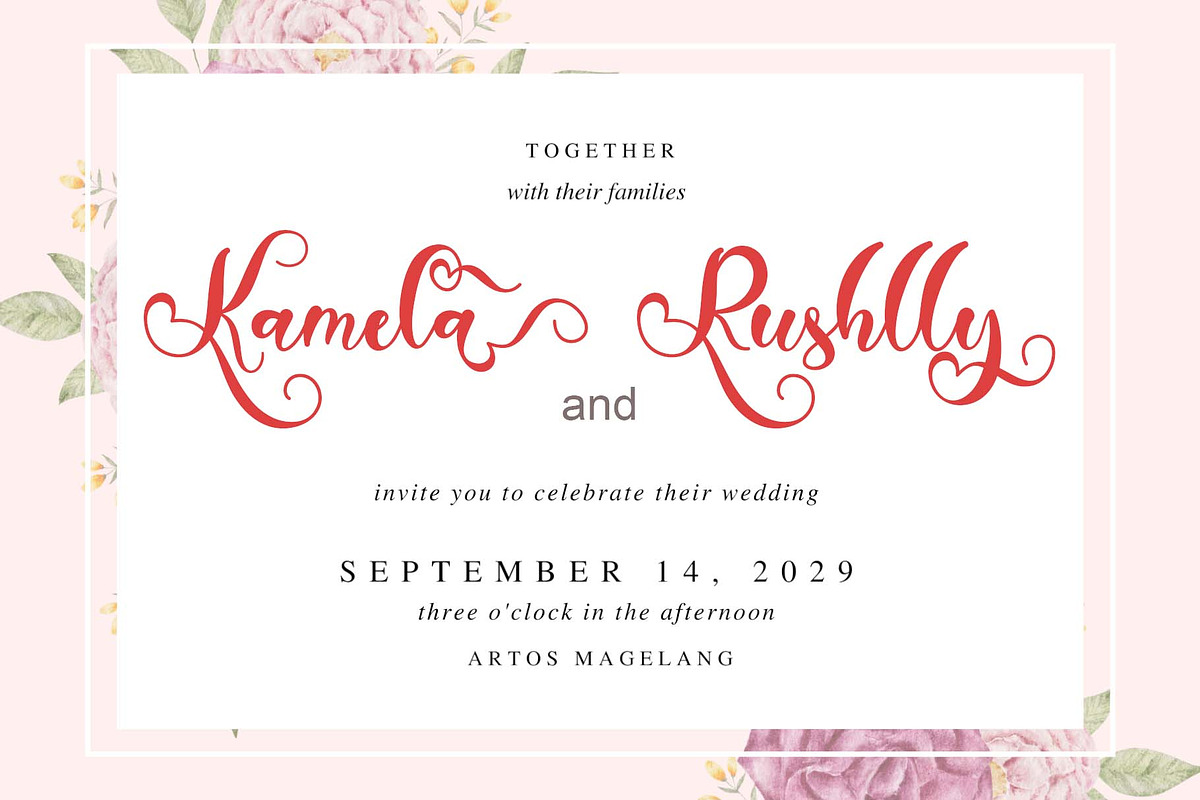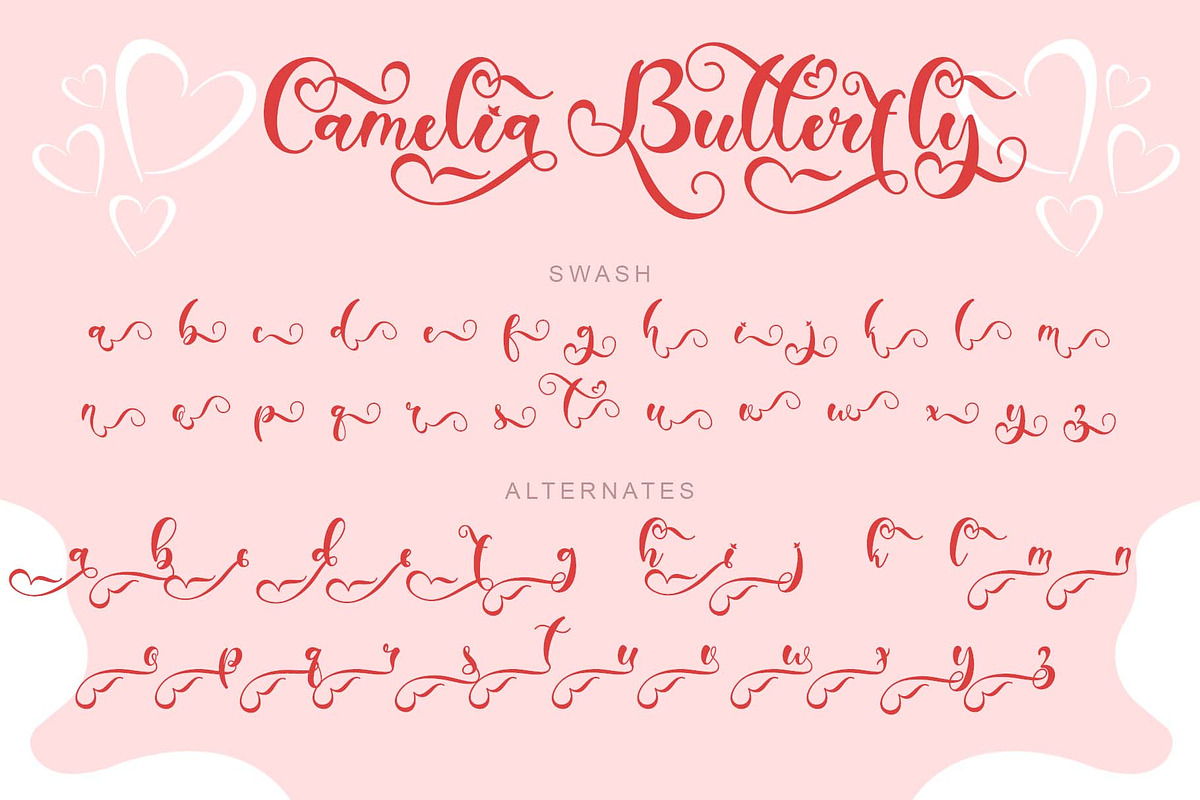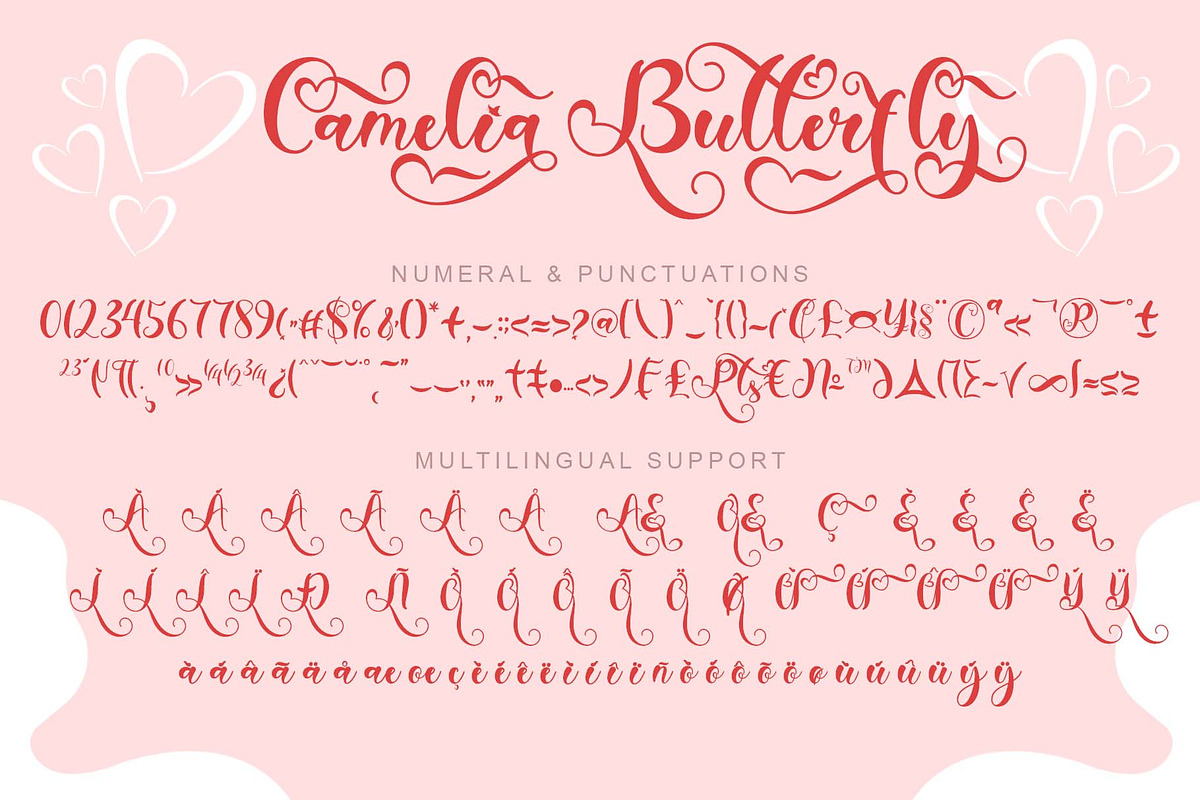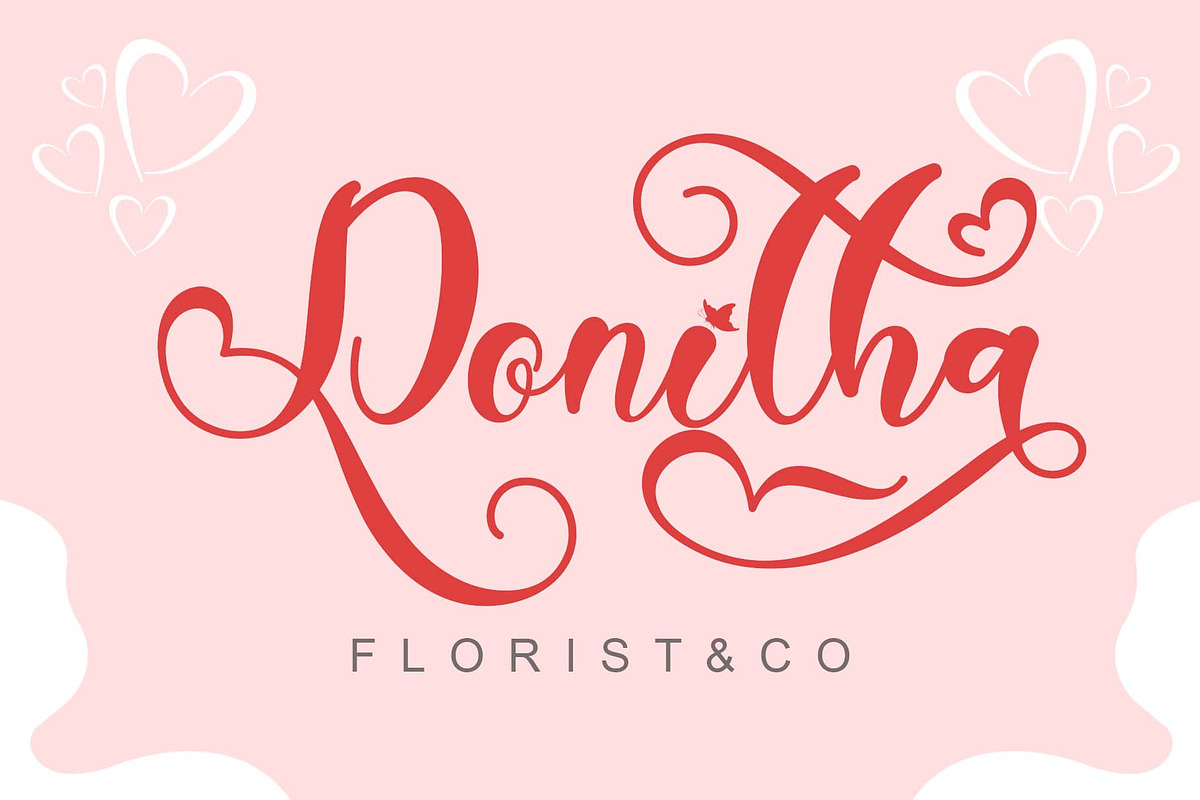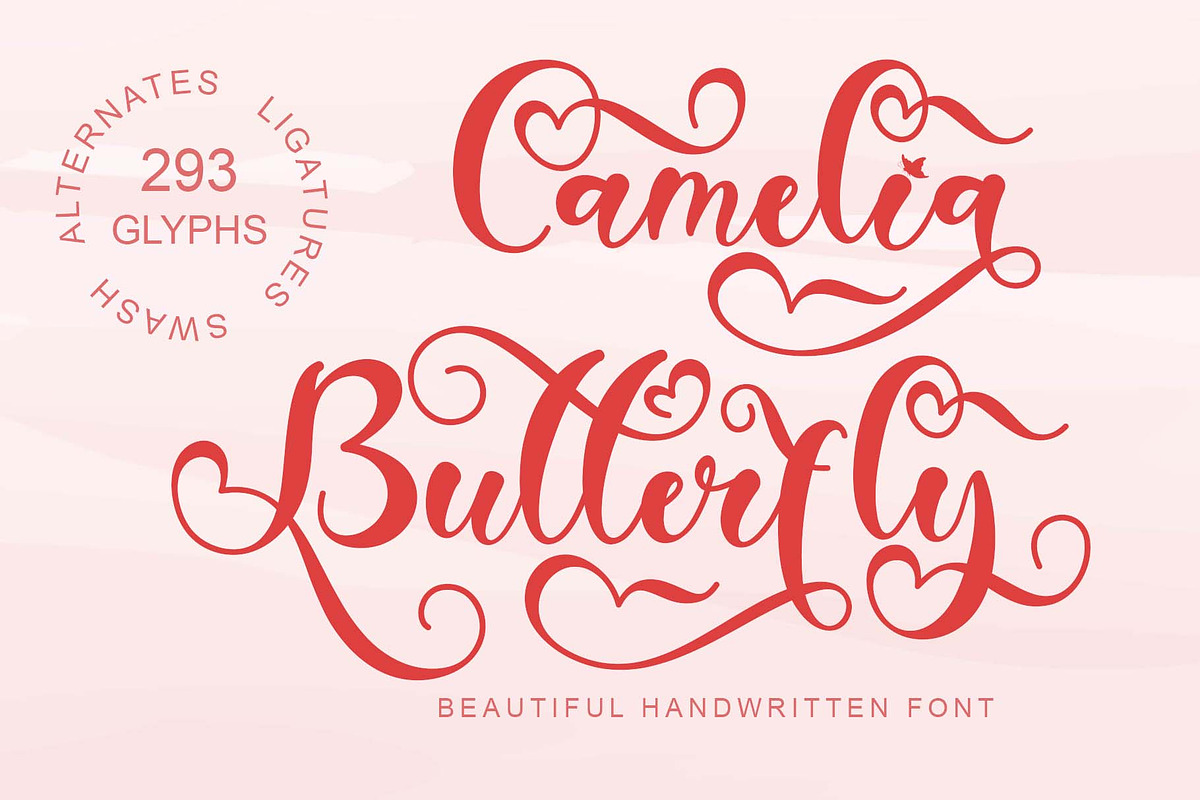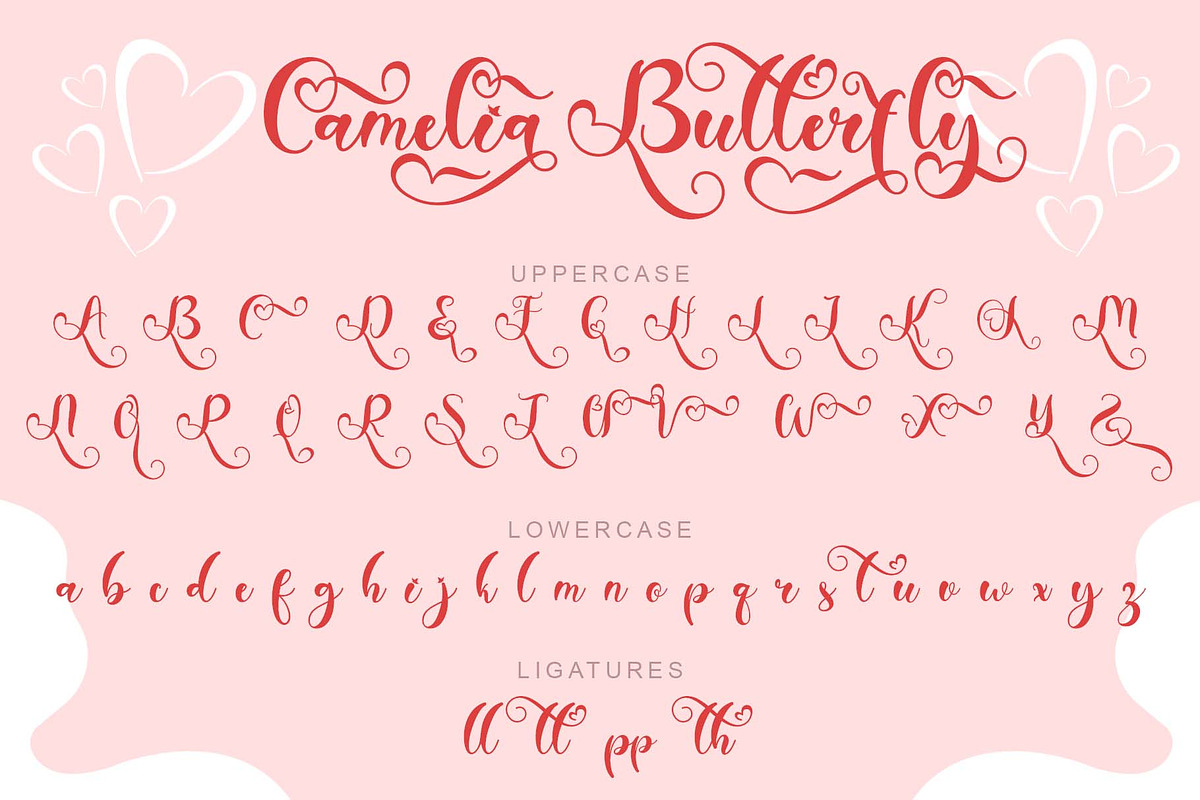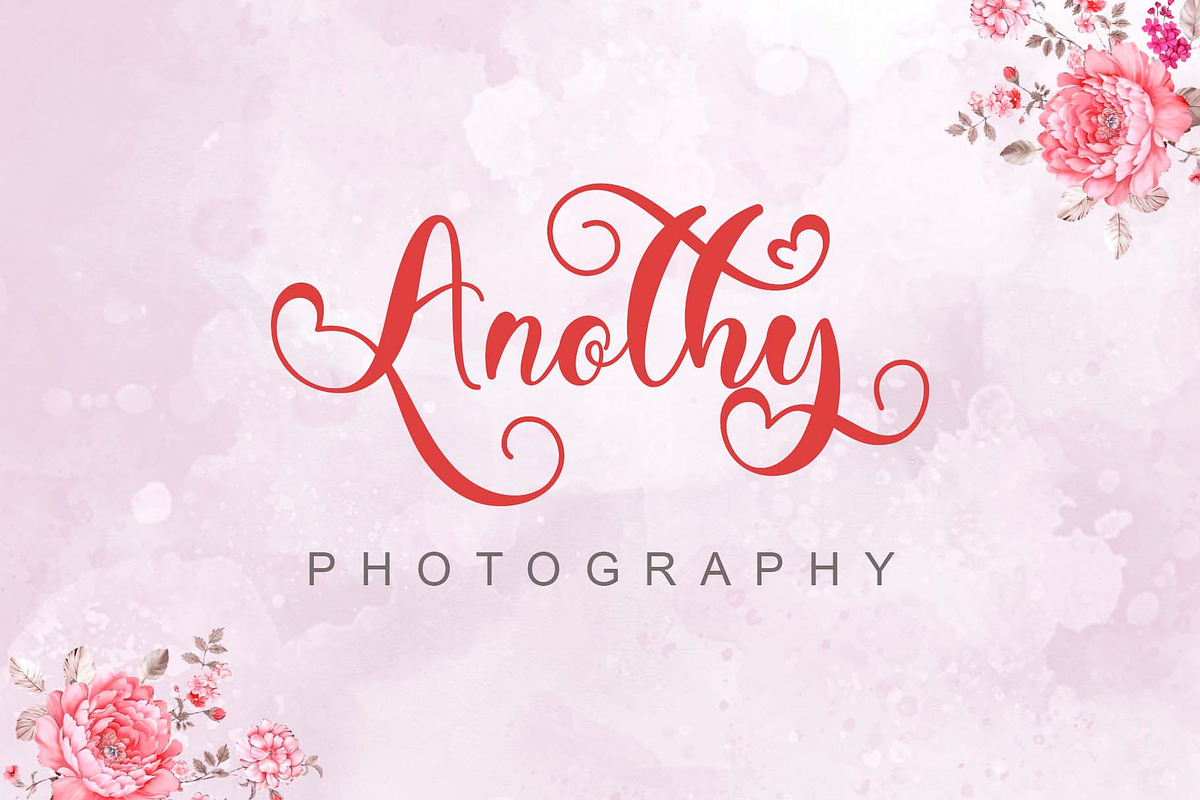
Camelia Butterfly
"Camelia Butterfly" is a beautiful and lovely handwritten font. It comes with uppercase, lowercase, swashes, alternate letters, numbers, punctuation, and multilingual support. It is perfect for use on Valentine's Day, wedding, invitation, photography, Christmas, winter, party, birthday, spring, and more.